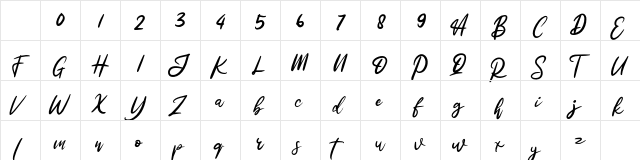
Complete Watterland Typeface FREE Regular glyph index. Displaying only characters natively supported by Watterland Typeface FREE Regular font.
Watterland Typeface FREE is a composed and adaptable typeface that performs quietly and consistently across a wide range of design contexts.